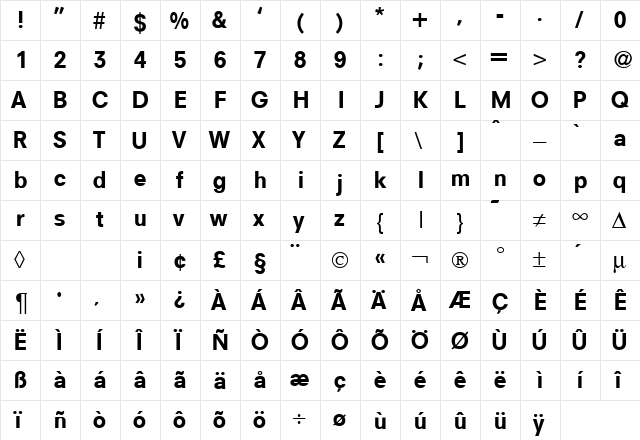
NewSans Bold
Design Context for NewSans Typeface
NewSans is a composed and adaptable typeface that performs quietly and consistently across a wide range of design contexts. The heavy weight commands attention and anchors typographic hierarchies.